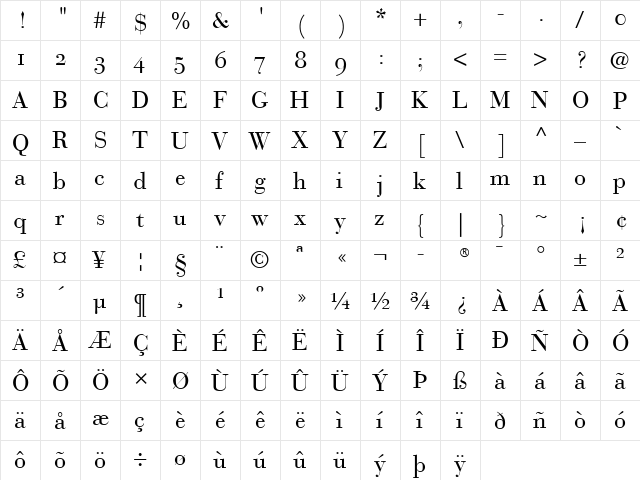
BauerBodoni RomanOsF Regular
Design Context for BauerBodoni RomanOsF Typeface
BauerBodoni RomanOsF is a composed and adaptable typeface that performs quietly and consistently across a wide range of design contexts.